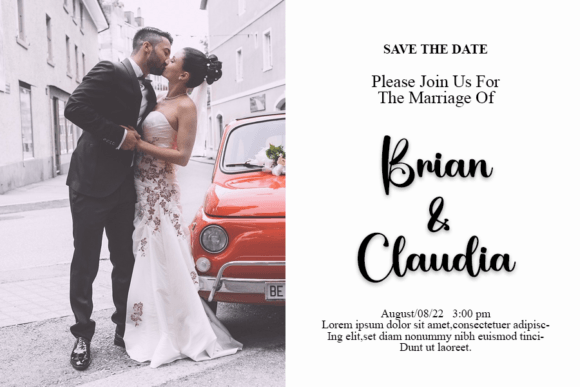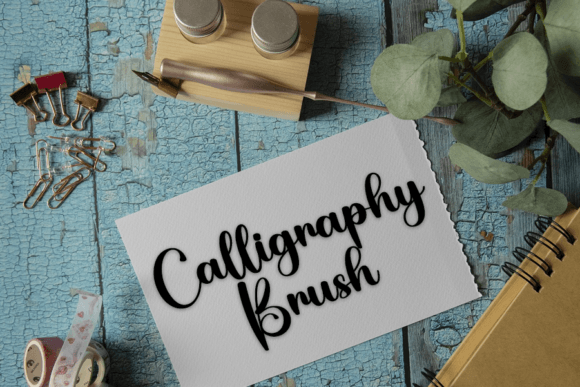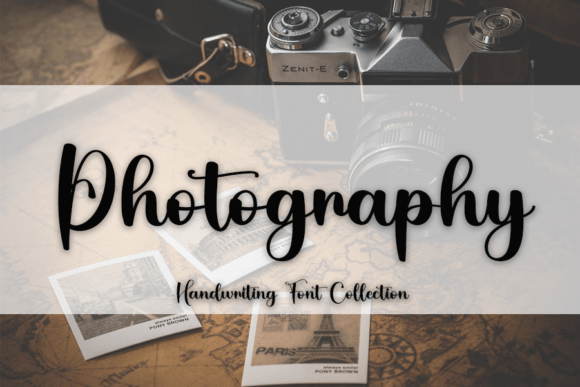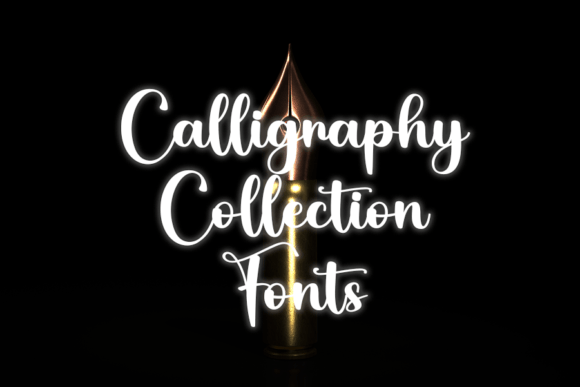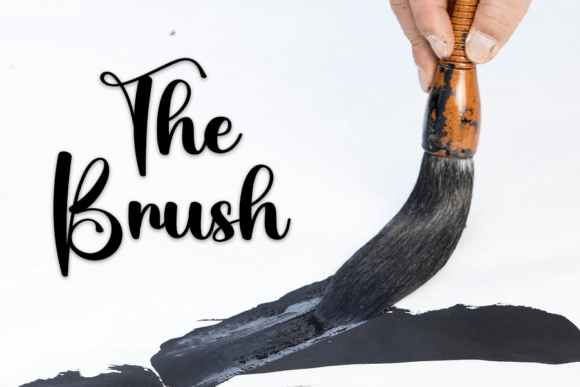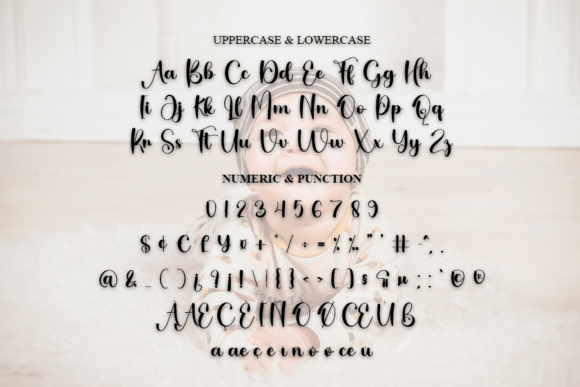
Getting Creative with Birthday Wishes
Do you remember that moment when you stumbled upon the perfect font for a project? The one that just clicked, and suddenly everything fell into place? That’s exactly what happened when I discovered the Birthday Baby Font.
This cool and modern handwritten script font is a game-changer for any creative project. Whether you’re making a birthday card for a loved one, creating a presentation for work, or designing a digital craft, Birthday Baby Font has got you covered. Its versatility and unique charm make it a valuable addition to any designer’s toolkit.
Birthday Baby Font Key Features
- Font Family: Birthday Baby Font is a unique, handwritten font designed to resemble a child’s birthday card.
- Character Count: The font contains 248 glyphs, ensuring comprehensive coverage of characters for various languages.
- Unique Characteristics: The font features playful, cursive script with irregular letterforms, giving it a whimsical and celebratory feel.
Birthday Baby Font Review
Overall, the Birthday Baby Font has some charming qualities that can make it a great choice for certain designs, but it also has some limitations that might make it less versatile.
- Playful and whimsical feel, perfect for children’s birthday parties or celebrations
- Distinctive, hand-drawn style that can add a personal touch to designs
- Available in a range of weights and styles, making it easy to customize
- May not be suitable for formal or professional designs, due to its playful nature
- Lack of bold, dramatic flourishes, which can make it less attention-grabbing
- Not as legible at smaller font sizes, which can make it difficult to read in certain contexts
The Birthday Baby Font is a fun, lighthearted choice for designs that need a playful touch. While it may not be the best fit for every project, it can be a great addition to the right design. With its charming, hand-drawn style and range of customization options, it’s definitely worth considering for birthday party invitations, social media graphics, or other celebratory designs.
Tip: Use the Birthday Baby Font in conjunction with colorful graphics and patterns to create a festive atmosphere.
The Birthday Baby Font is ideal for:
- Birthday invitations and party decorations
- Children’s book covers and illustrations
- Party and event planning materials
Alternatives to Birthday Baby Font for Designers
Great Vibes is a beautiful, handwritten font that is perfect for creating a whimsical and playful atmosphere. It’s ideal for designs that require a touch of elegance and sophistication, such as wedding invitations, baby shower invitations, and social media graphics. Great Vibes has a more refined and delicate look compared to Birthday Baby Font, making it suitable for a wider range of design projects.
Alex Brush is a elegant and sophisticated font that is perfect for creating a high-end look. It’s ideal for designs that require a touch of luxury and sophistication, such as business cards, brochures, and packaging designs. Alex Brush has a more polished and refined look compared to Birthday Baby Font, making it suitable for formal and professional design projects.